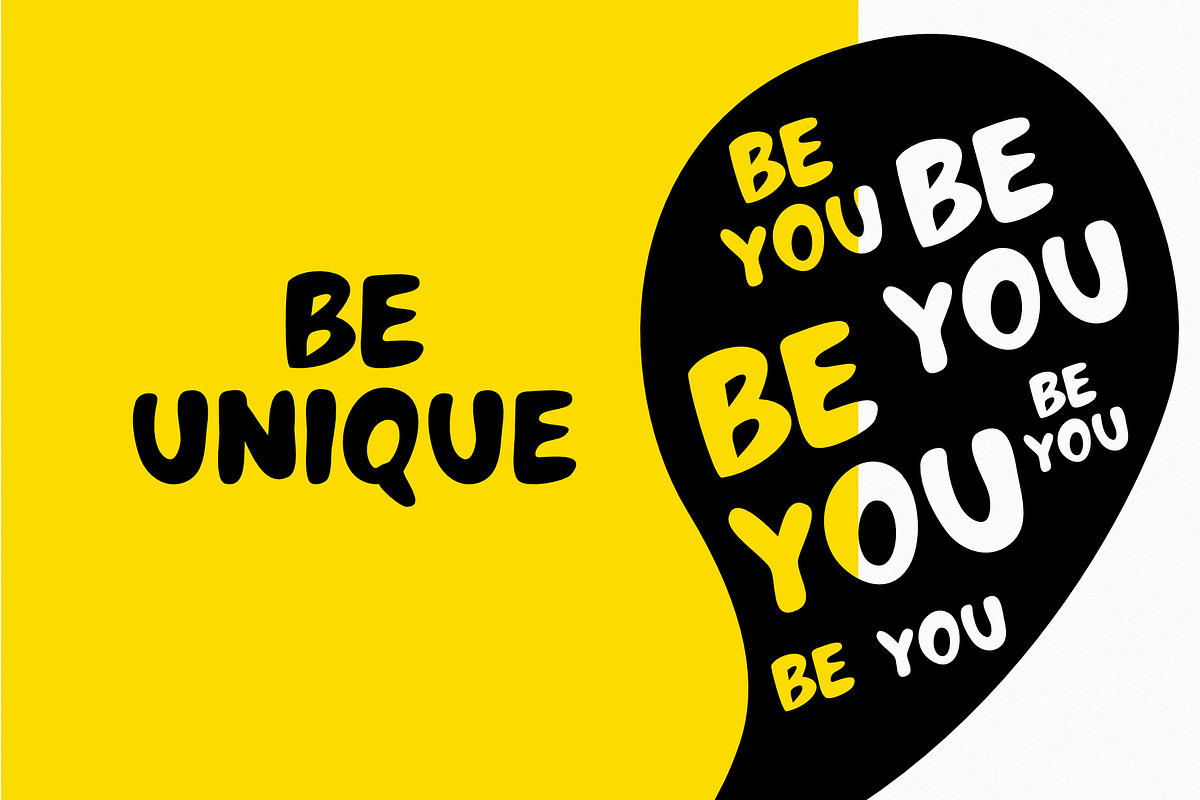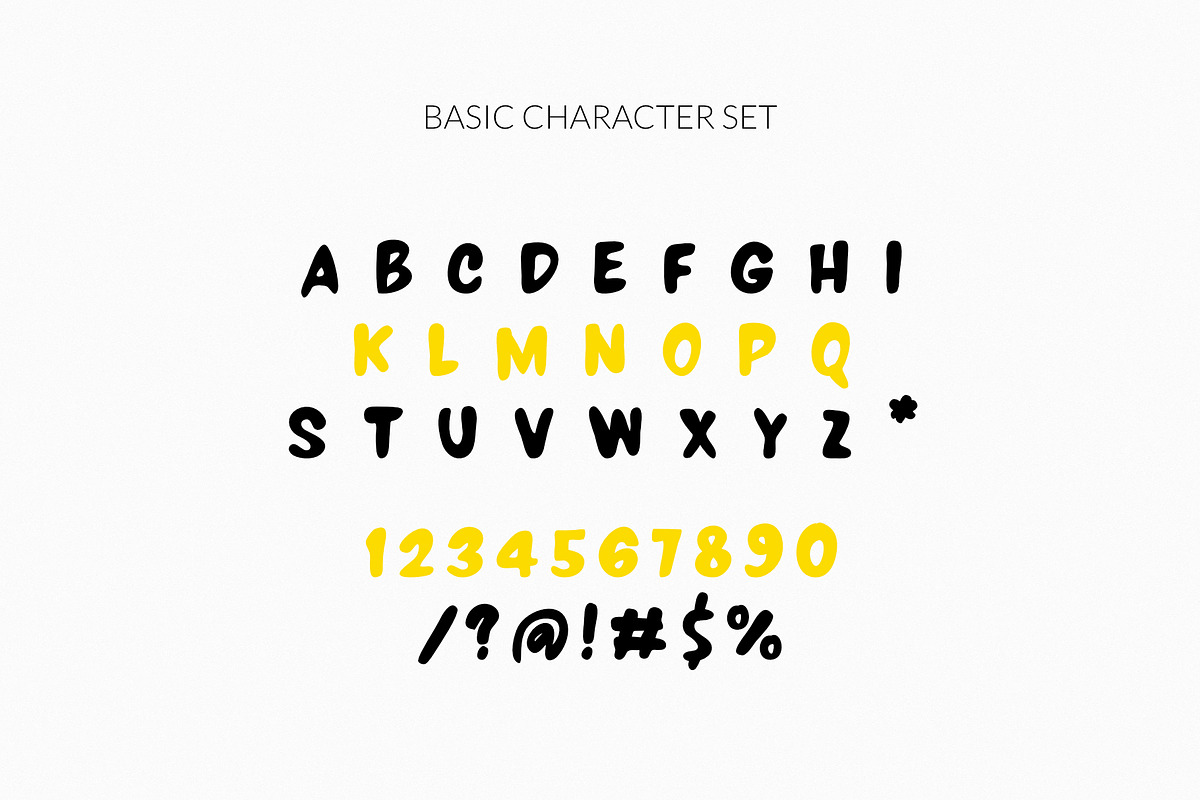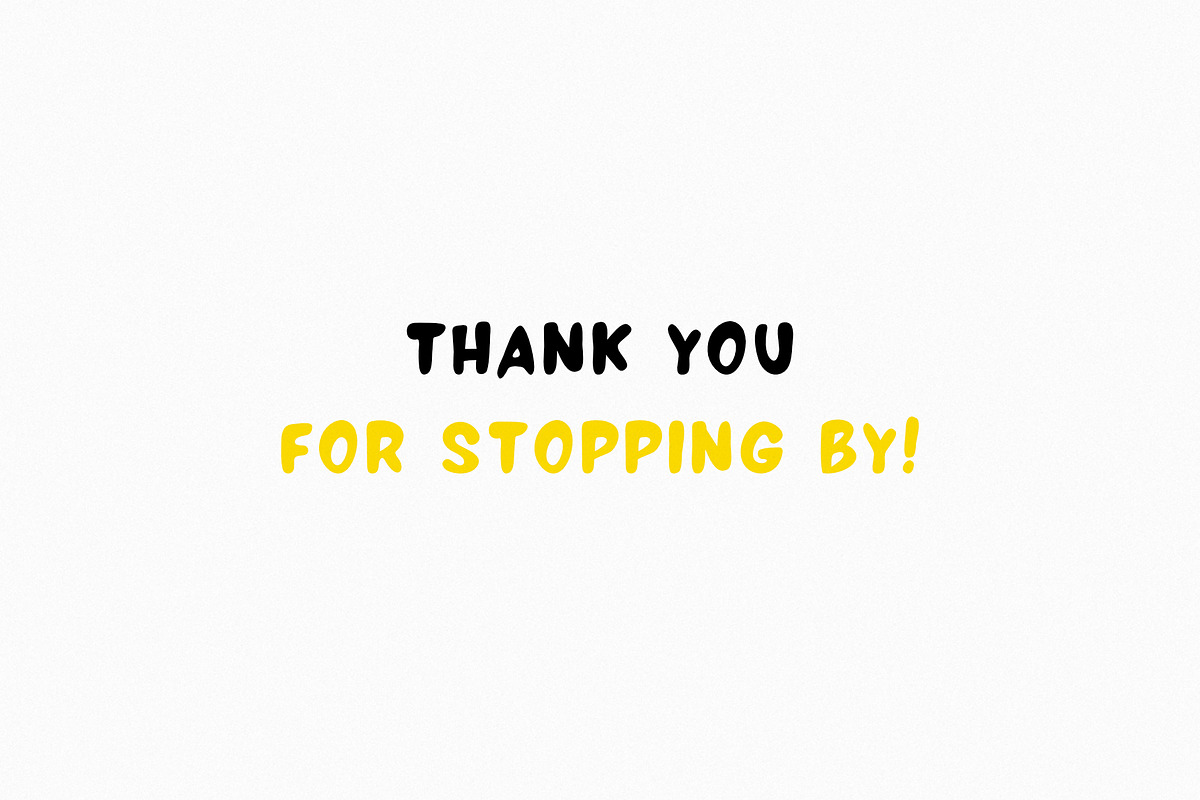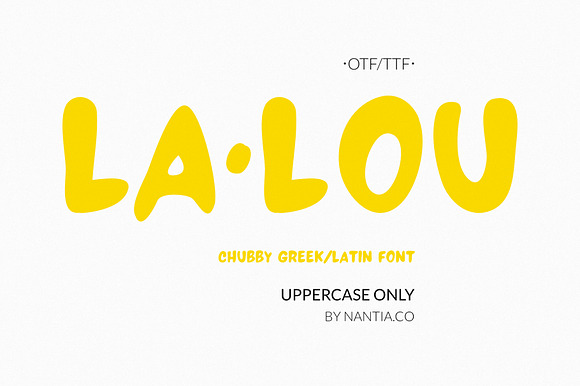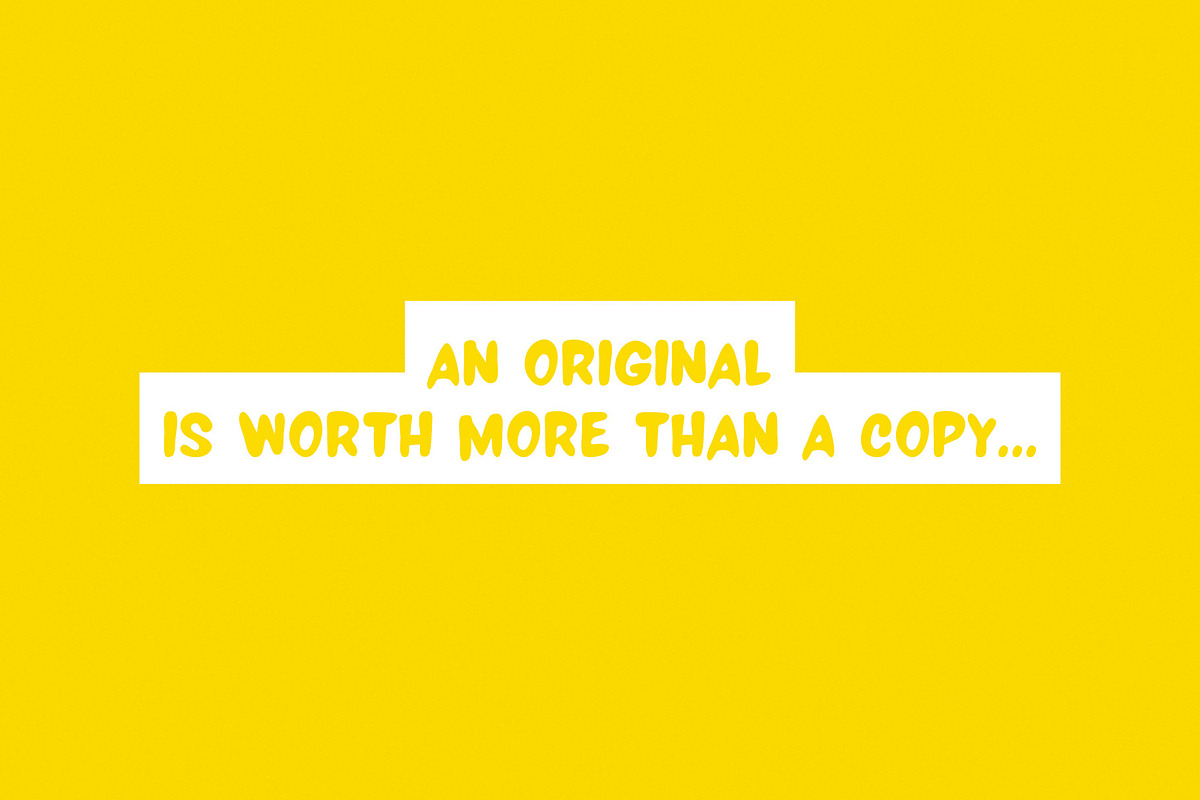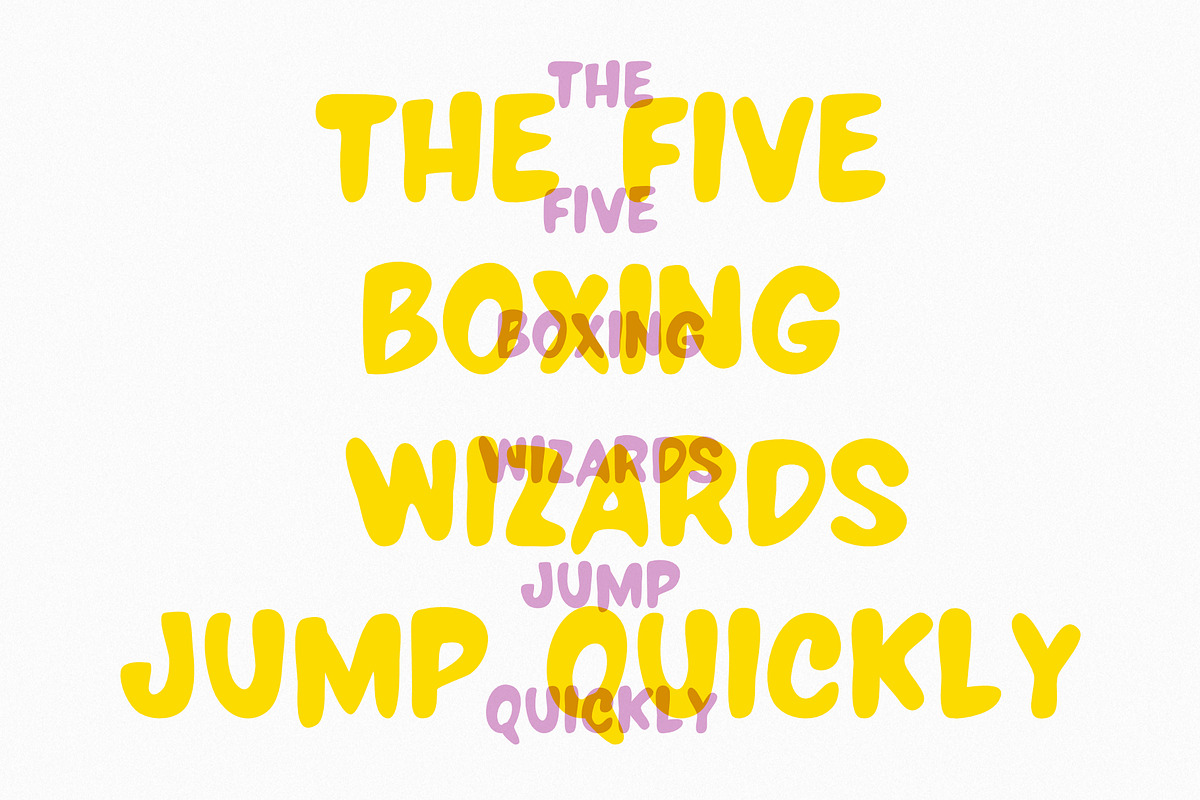
Greek Font Lalou
LALOU Greek Latin Chubby Font is a decorative font. The font supports Greek character set and a Latin character set. The cute, chubby feeling of the font makes it ideal for food packaging. Also, it can be used on social media content, for branding, poster design, or packaging.